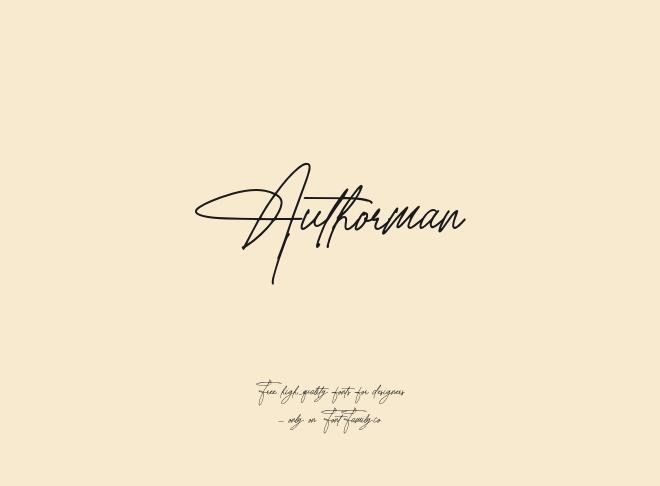
Authorman Font
Introducing Authorman Font, a handwritten rustic font with a playful retro touch. Released by John Doe Design Foundry in 2021, it's perfect for adding a vintage vibe to your design projects. Its playful charm is reminiscent of classic handwritten letters, making it a great choice for branding, logo design, product packaging, and more. The font shines in contexts where you need to evoke nostalgia or portray a casual, friendly vibe. The font is free for personal use, and compared to other fonts in the market, Authorman Font stands out with its unique character and style. It's a must-have for designers who want to add a touch of retro to their projects.